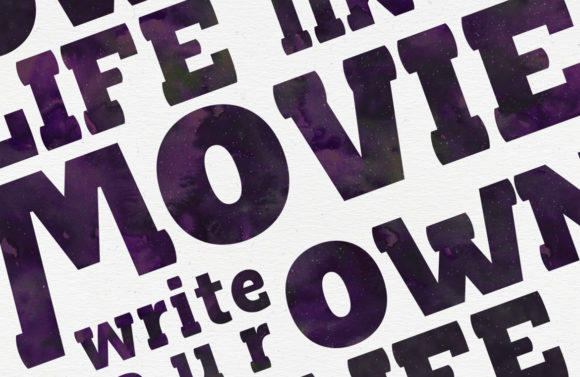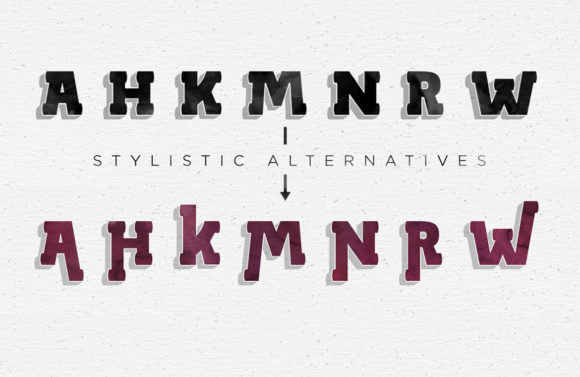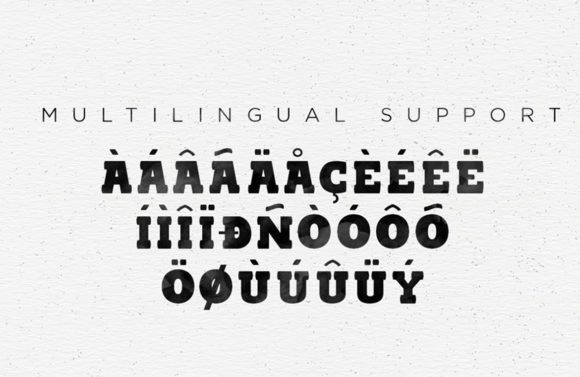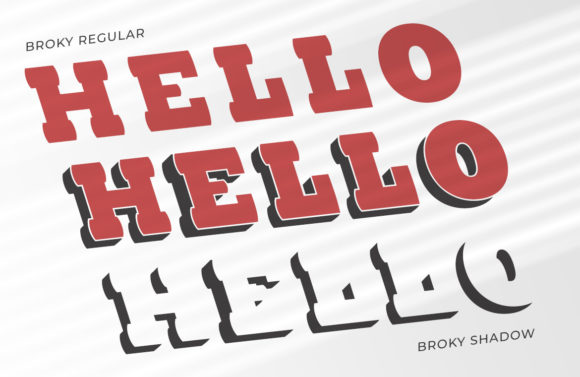
Introducing Broky Font: A Cool Western-Inspired Slab Serif Font
Are you tired of using the same old fonts in your designs? Look no further than Broky Font, a cool, western-looking slab serif font that’s sure to elevate your creations. With its rugged yet refined aesthetic, Broky is an incredible asset to any font library, capable of adding a touch of sophistication to any project.
What is Broky Font?
Broky Font is a slab serif font designed to evoke the spirit of the American West. Its bold, chunky letters are perfect for creating eye-catching headlines, titles, and logos that demand attention. The font’s rugged, distressed look gives it a unique, hand-crafted feel that’s perfect for designers looking to add a touch of authenticity to their work.
Key Features of Broky Font
- Western-Inspired Design: Broky Font is designed to evoke the spirit of the American West, with bold, chunky letters that are perfect for creating rugged, attention-grabbing headlines.
- Slab Serif Design: The font’s slab serif design gives it a sturdy, dependable feel that’s perfect for creating titles, logos, and other graphical elements.
- Distressed Look: The font’s distressed look gives it a unique, hand-crafted feel that’s perfect for designers looking to add a touch of authenticity to their work.
- Highly Versatile: Broky Font is highly versatile, making it perfect for use in a wide range of design projects, from posters and flyers to logos and branding materials.
Why Use Broky Font?
So why should you use Broky Font in your designs? Here are just a few reasons:
- Add a Touch of Authenticity: Broky Font’s distressed look and western-inspired design give it a unique, authentic feel that’s perfect for designers looking to add a touch of ruggedness to their work.
- Stand Out from the Crowd: With its bold, chunky letters, Broky Font is sure to grab attention and help your designs stand out from the crowd.
- Elevate Your Brand: Broky Font’s sophisticated, refined aesthetic makes it perfect for use in branding and logo design, helping to elevate your brand and give it a more professional look.
How to Use Broky Font
Broky Font is highly versatile, making it perfect for use in a wide range of design projects. Here are just a few ideas to get you started:
- Posters and Flyers: Use Broky Font to create eye-catching posters and flyers that demand attention.
- Logos and Branding: Broky Font’s bold, chunky letters make it perfect for use in logos and branding materials.
- Signage and Displays: The font’s rugged, distressed look makes it perfect for use in signage and display materials.
In conclusion, Broky Font is a cool, western-looking slab serif font that’s sure to elevate your designs. With its rugged yet refined aesthetic, Broky is an incredible asset to any font library, capable of adding a touch of sophistication to any project. Whether you’re a designer, craft, or simply someone looking to add a touch of authenticity to your work, Broky Font is a great choice.